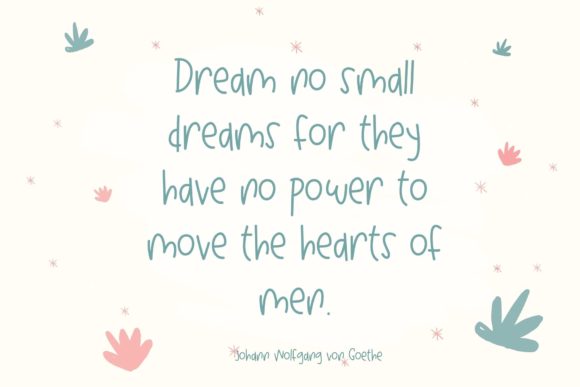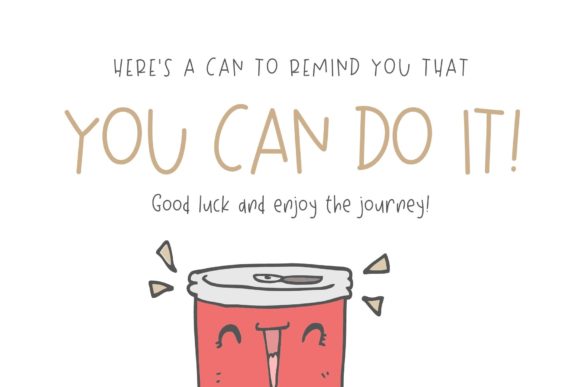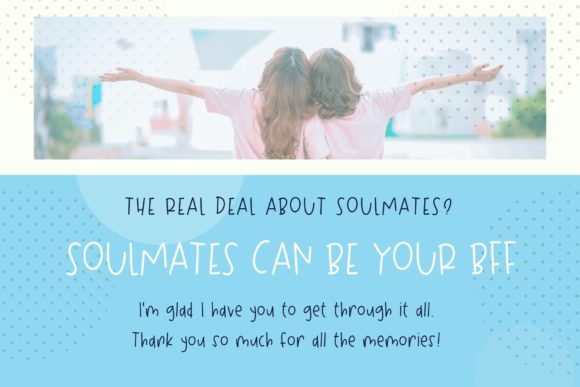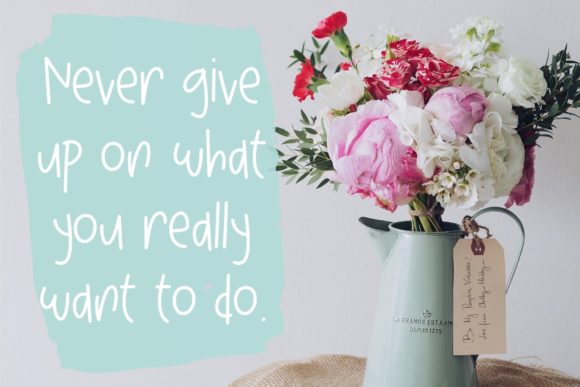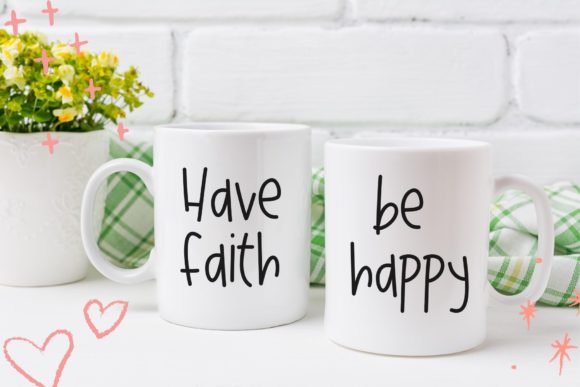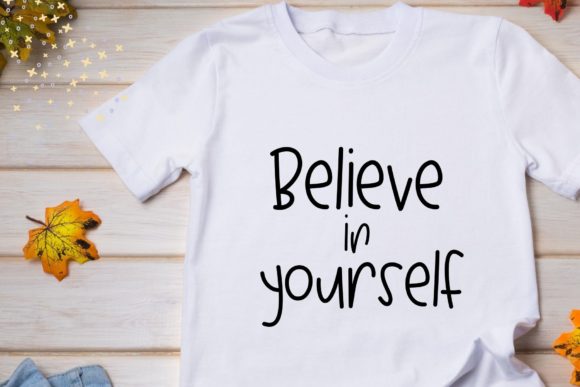
Introduction to Just My Dream Font
Just My Dream is a sweet, casual and friendly handwritten font.
Fall in love with its incredibly versatile style and use it to create spectacular designs .